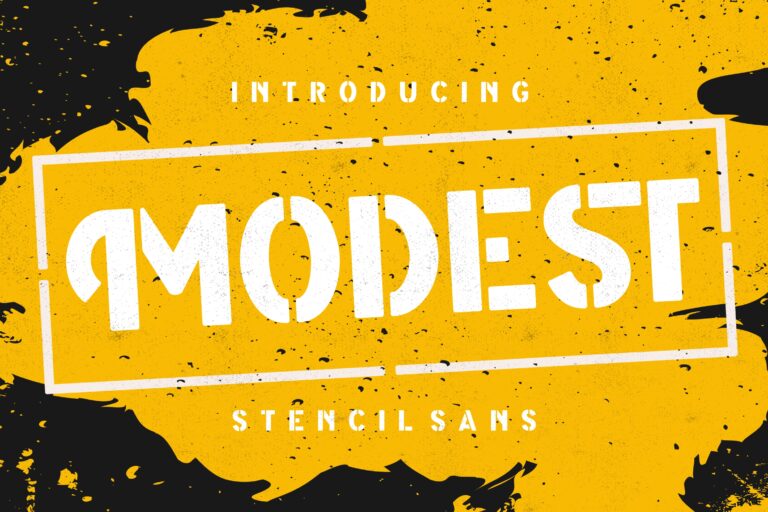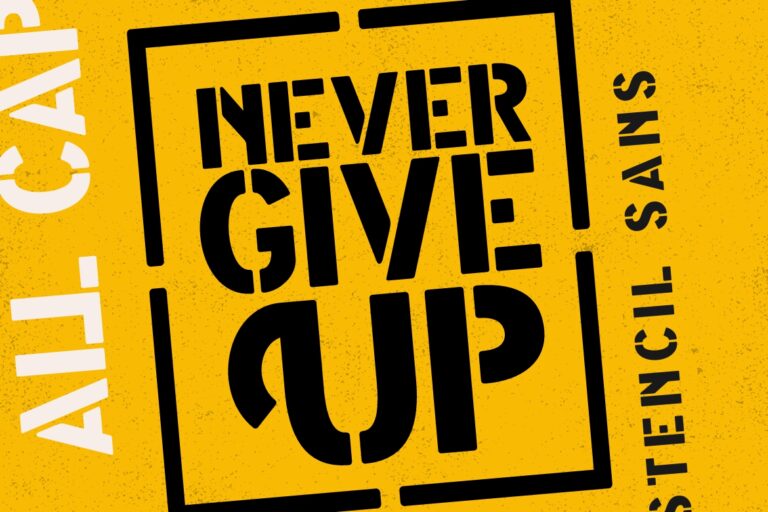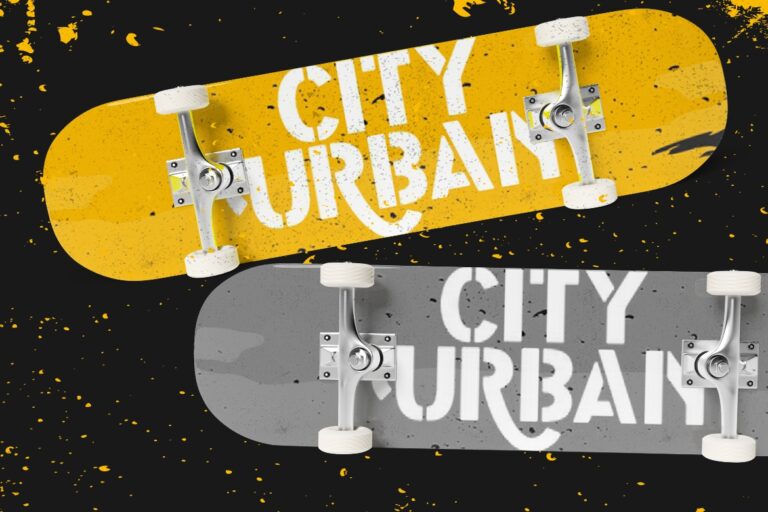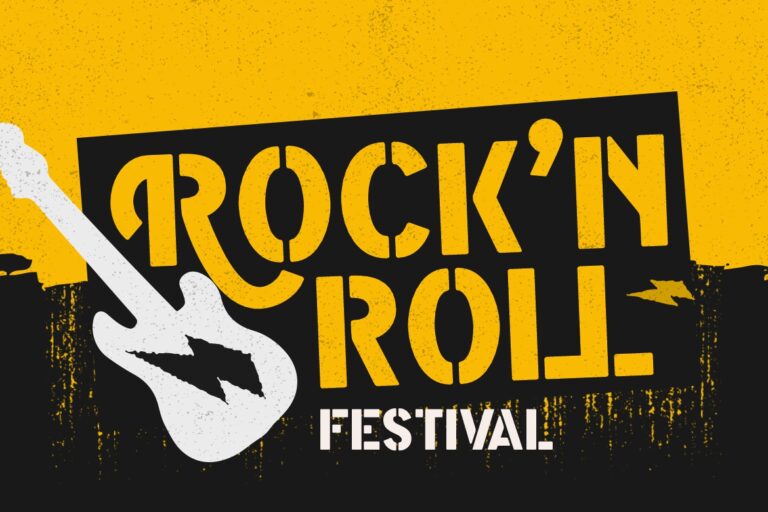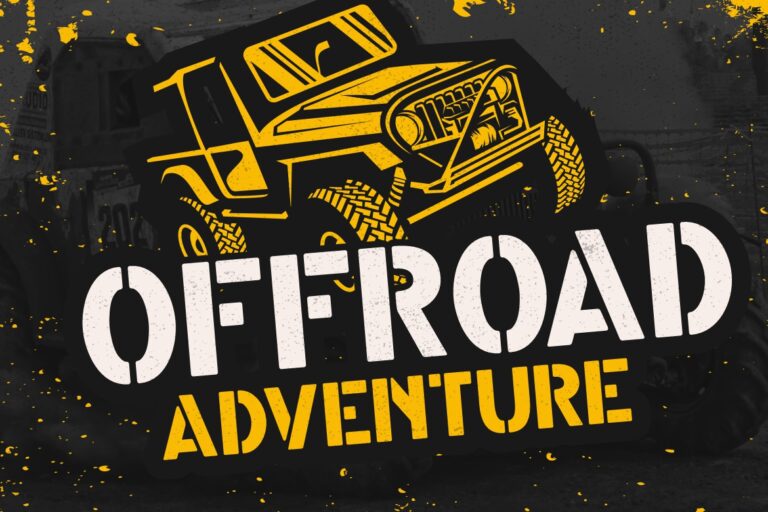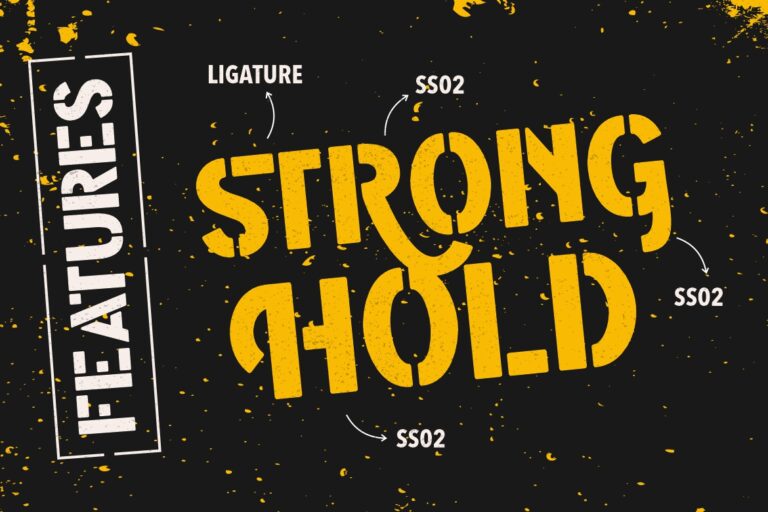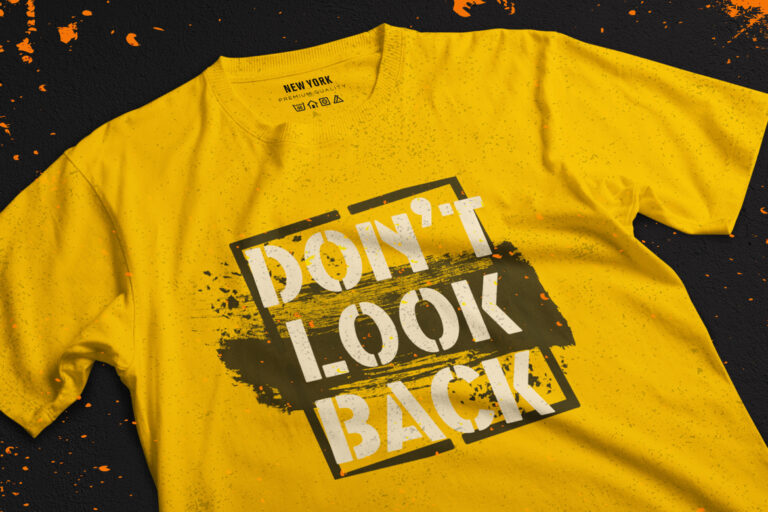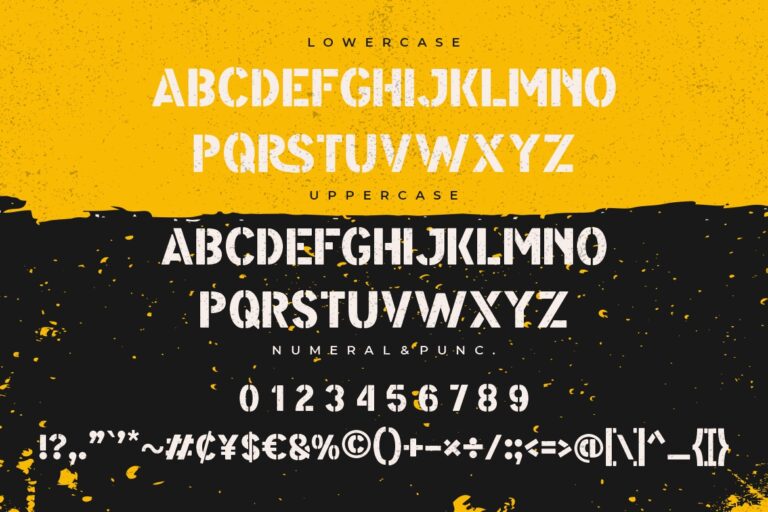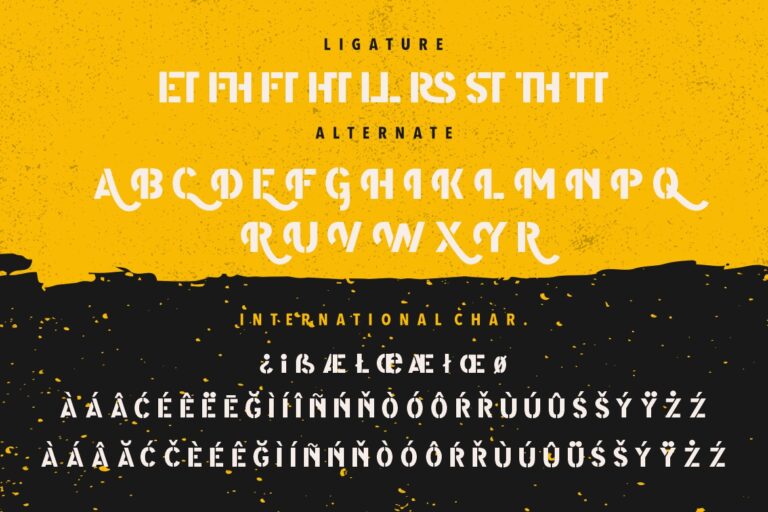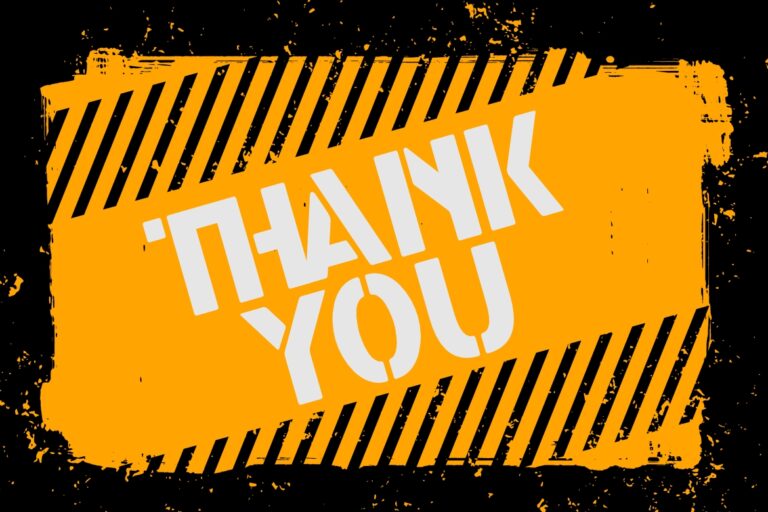
Modest Stencil Sans
Modest a stencil sans font with stylish cut classic stencil that has been designed to create eye catching and intriguing displays.
Modest would perfect for photography, watermark, social media posts, advertisements, logos & branding, invitation, product designs, label, stationery, wedding designs, product packaging, special events or anything that need handwriting taste.